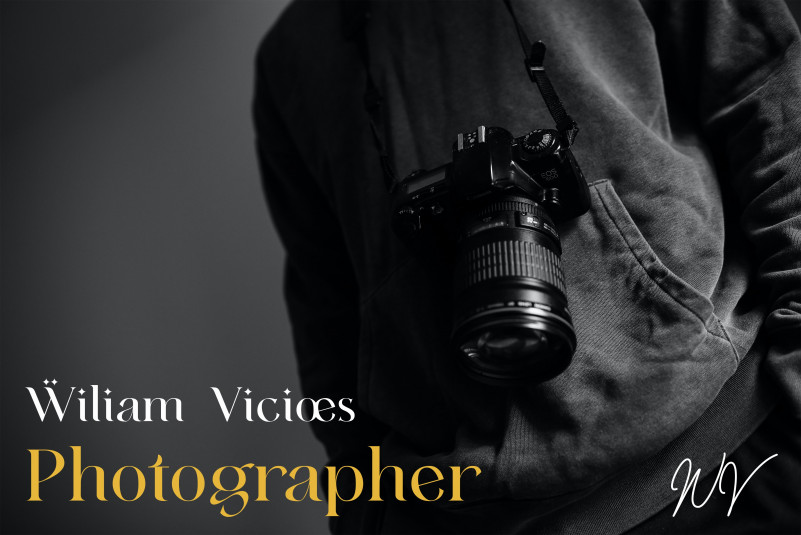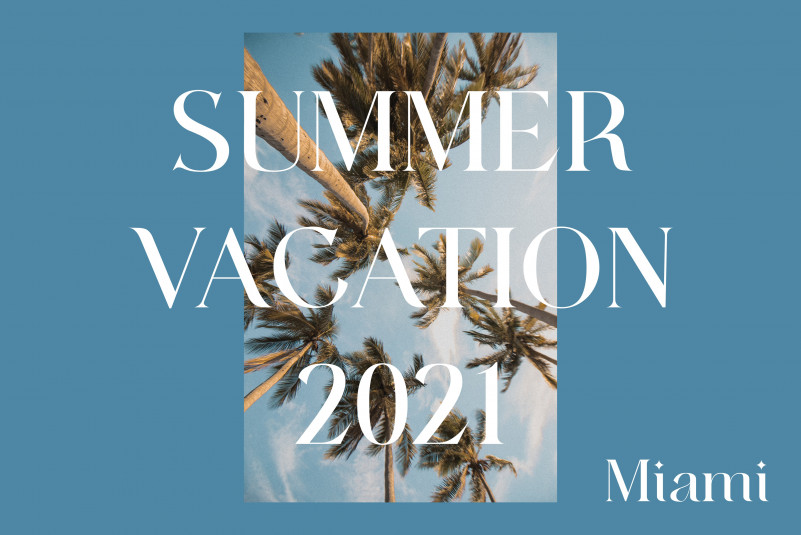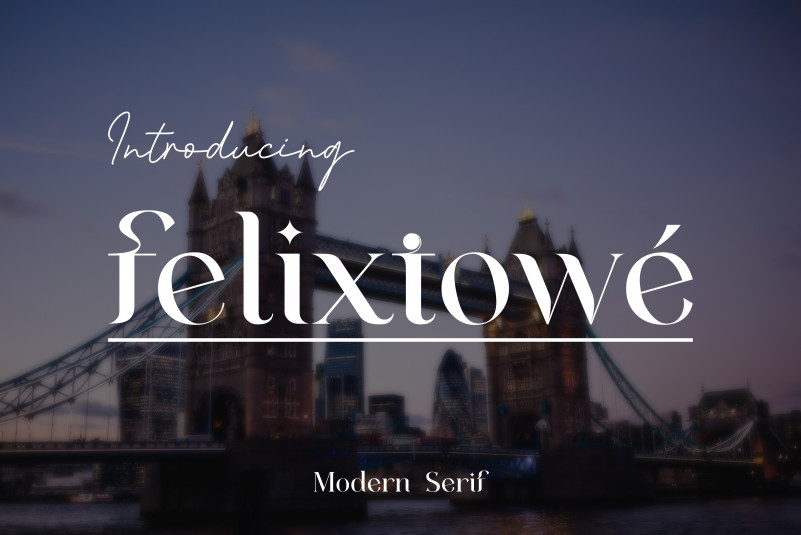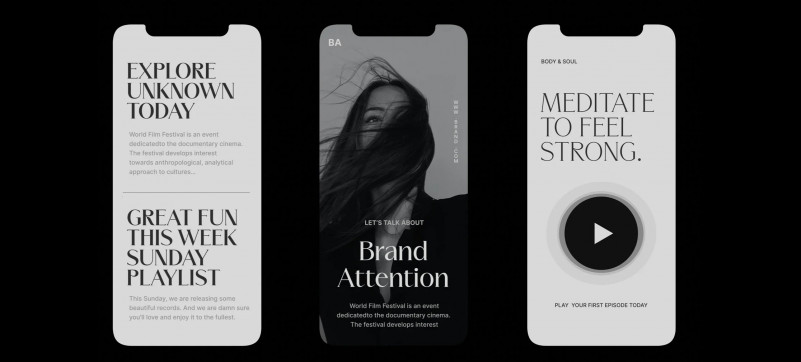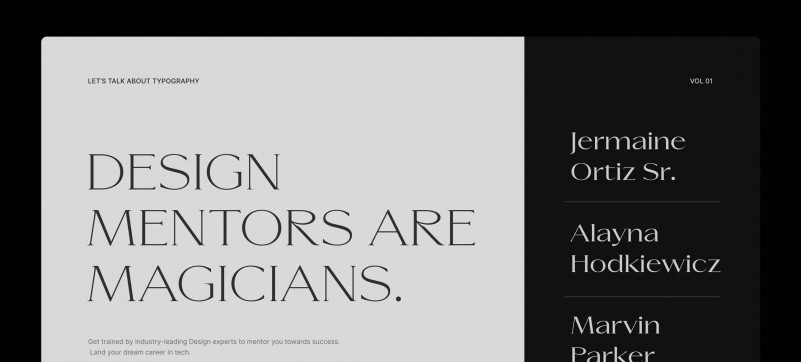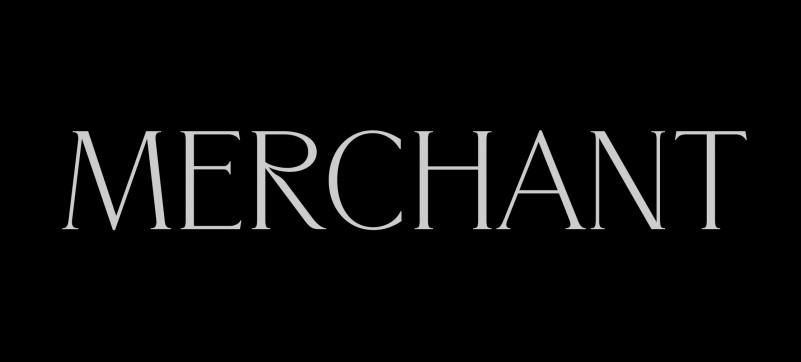
Aratama Sans Serif Font
Aratama is a sophisticated sans serif font. It features clean characters that will look particularly adept when used in logos, branding, packaging design, and much more. This masterfully designed font is a true must-have.